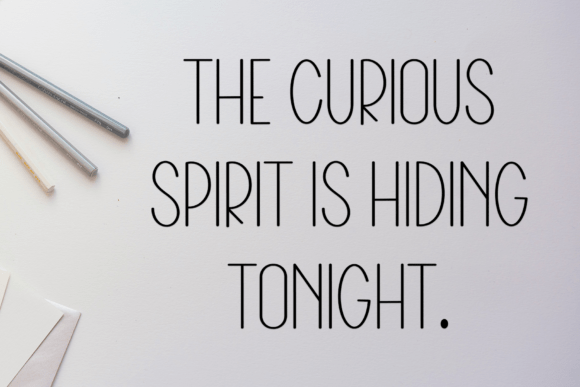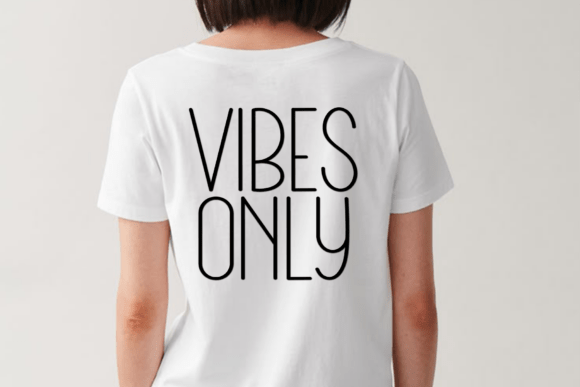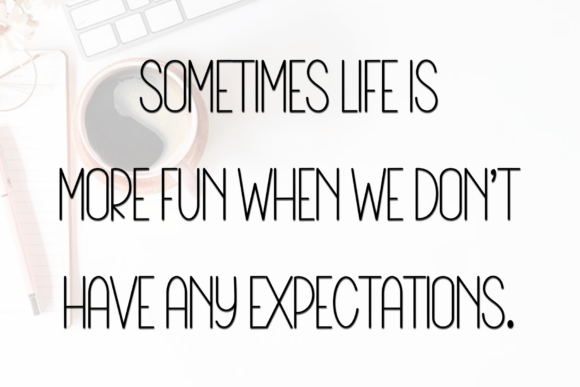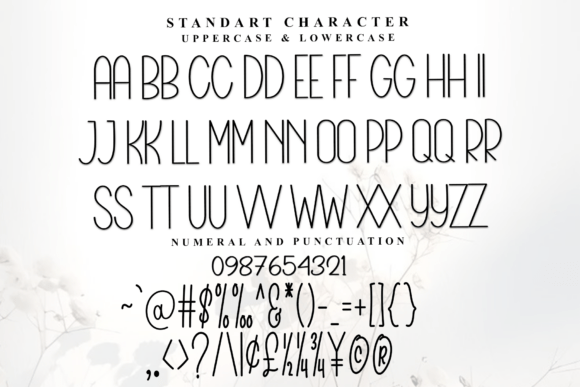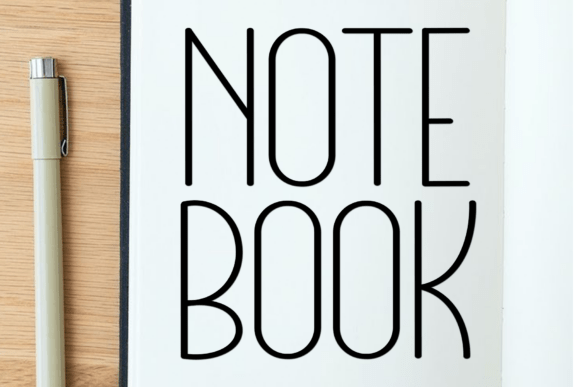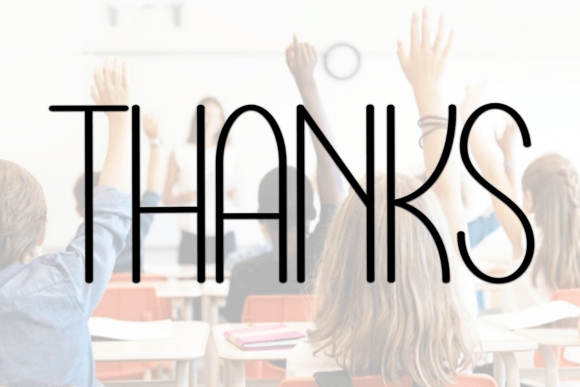
Introduction to Good Teacher Font
As a designer, you know the thrill of finally landing on the perfect font for your creative project. It’s like stumbling upon a hidden treasure, a secret ingredient that elevates your design from good to great. For those seeking a font that exudes warmth and friendliness, look no further than the Good Teacher Font. Its round, playful strokes create a relaxed and approachable feel, perfect for personal projects, invitations, and social media graphics.
Whether you’re working on a design resource for a friend’s birthday or crafting a high-quality logo for a client, the Good Teacher Font is an invaluable addition to your design arsenal. With its charming, hand-drawn aesthetic, this font adds a fun and unique touch to any design, making it stand out from the crowd.
Key Features of Good Teacher Font
- High-quality design resource suitable for creative projects, educational materials, and presentations.
- Transparency support for seamless integration with transparent backgrounds and overlays.
- Clear and readable font with a clean design, making it ideal for educational and professional use.
- Supports various languages, including English, Spanish, French, and many more.
- Unique characteristic: Designed specifically for teachers and educators, with a focus on clarity and professionalism.
Honest Review: Good Teacher Font
I recently had the chance to try out the Good Teacher Font, and I must say it’s a solid addition to any design resource. The font is a great choice for any creative project that requires a clean, modern look.
- High-quality design: The Good Teacher Font is well-designed and looks great on both light and dark backgrounds.
- Transparent background: The font’s transparent background makes it easy to use on a variety of creative projects.
- Limited font styles: The Good Teacher Font only comes in a few font styles, which may limit its versatility.
- No bold or italic options: The font doesn’t have bold or italic options, which may make it less suitable for certain design projects.
Overall, I think the Good Teacher Font is a great addition to any design resource. It’s free, high-quality, and easy to use. While it may have some limitations, I think it’s a great option for designers looking for a clean, modern font.
Tips for Getting the Most Out of Good Teacher Font
Use Good Teacher Font in headings and titles to add emphasis to your design. Experiment with different font sizes and colors to create visual interest. Combine Good Teacher Font with other fonts to create a unique and creative look.
Good Teacher Font is ideal for educational materials, such as lesson plans, presentations, and handouts. It’s also great for corporate designs, like business cards, brochures, and reports. The high-quality font is perfect for any creative project that requires a professional touch.